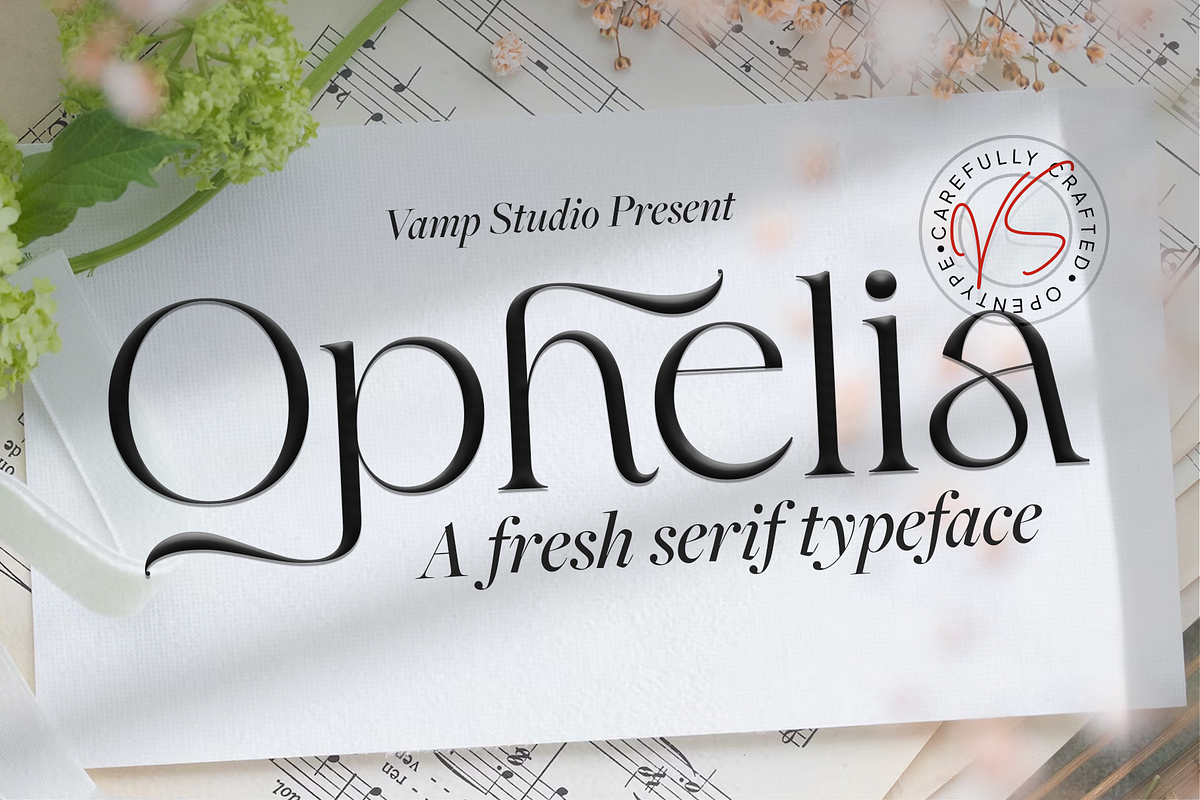
Ophelia Fresh Serif Typeface Free Download
Ophelia Fresh Serif Typeface Free Download is an elegant and contemporary serif font that combines refined classic design with a fresh, modern twist. With its delicate serifs and clean lines, this font is perfect for high-end branding, editorial layouts, packaging, logos, and any project that requires a sophisticated and timeless look.
Whether you’re working on a luxury brand, an upscale magazine, or a polished website, Ophelia brings a sense of elegance and professionalism to your typography. It’s the ideal font for designers who value beauty and clarity in their work.